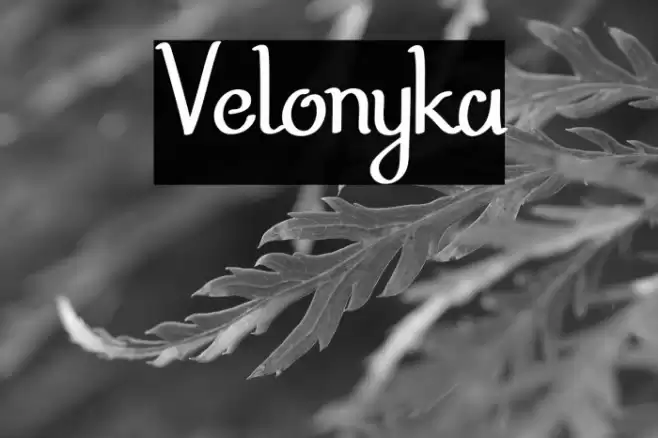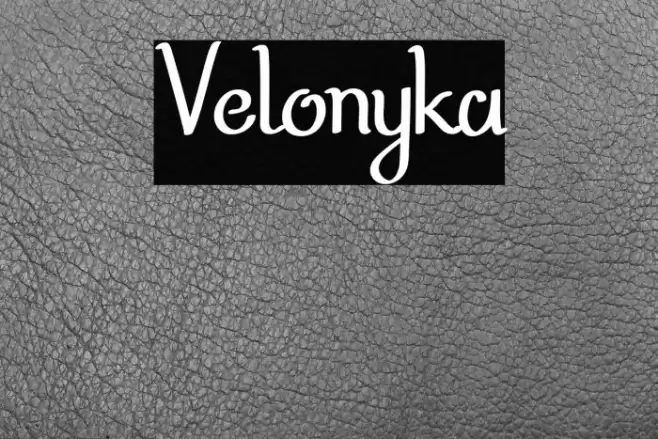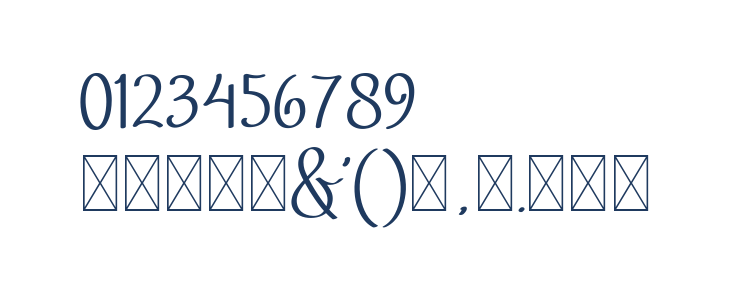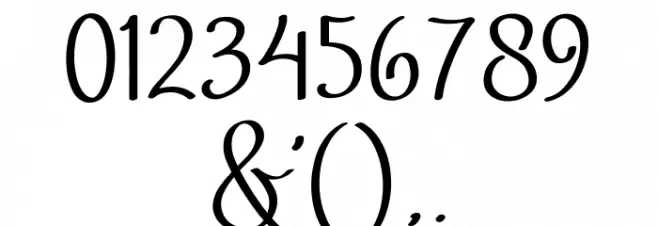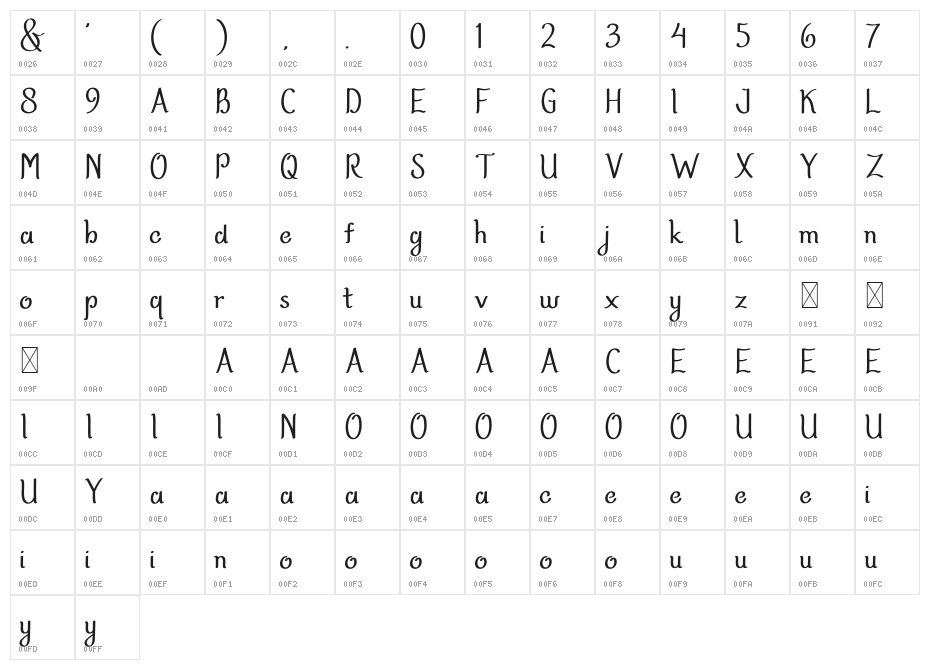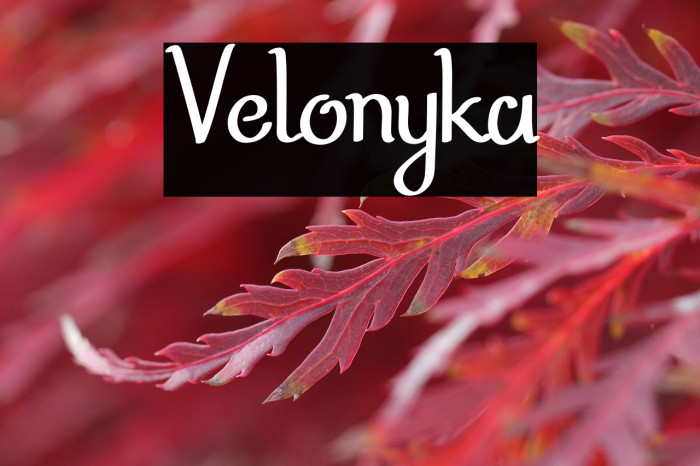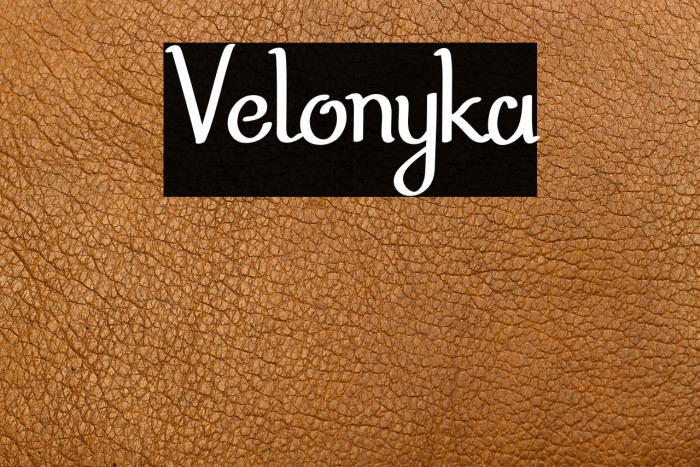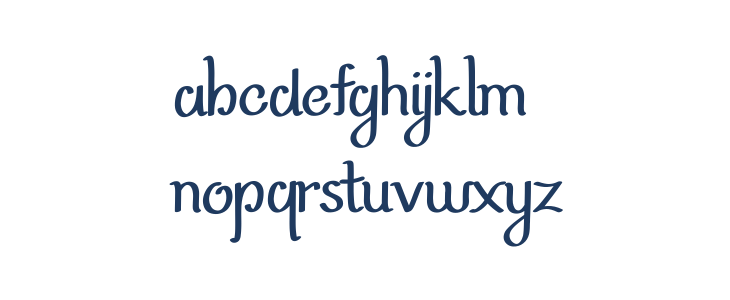
Velonyka Font
Velonyka Description
This font features a playful and whimsical design, characterized by its flowing, hand-drawn appearance. The letters have a unique, slightly irregular shape that adds a sense of charm and personality. The strokes are moderately thick, providing a good balance between readability and artistic flair. The uppercase letters are tall and elegant, while the lowercase letters have a more rounded and approachable feel. The numbers and special characters maintain the same playful style, making the font versatile for various uses. Overall, it exudes a friendly and inviting vibe, perfect for creative projects.
A playful, hand-drawn font with a whimsical and charming style from Regular fonts.
- Proposed Projects: Ideal for greeting cards, children's books, playful branding, and creative invitations.
- Use Case: Logos, Invitations, Creative projects